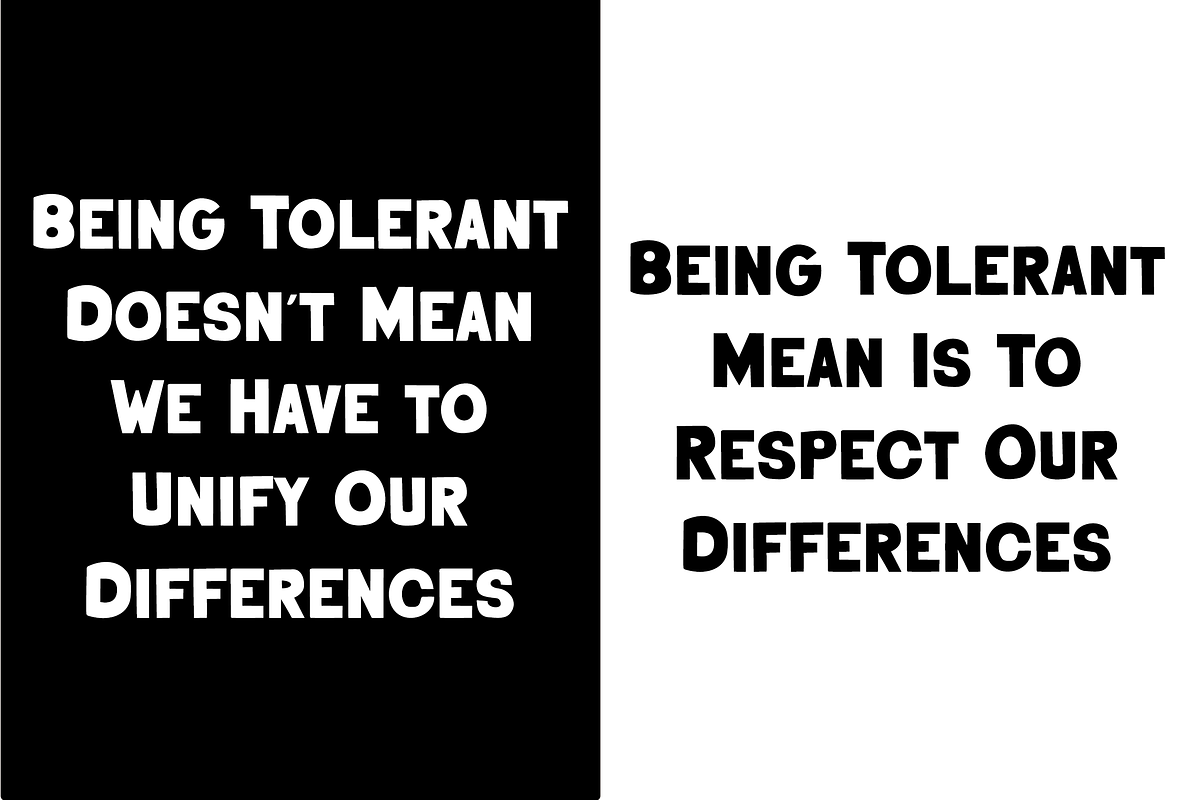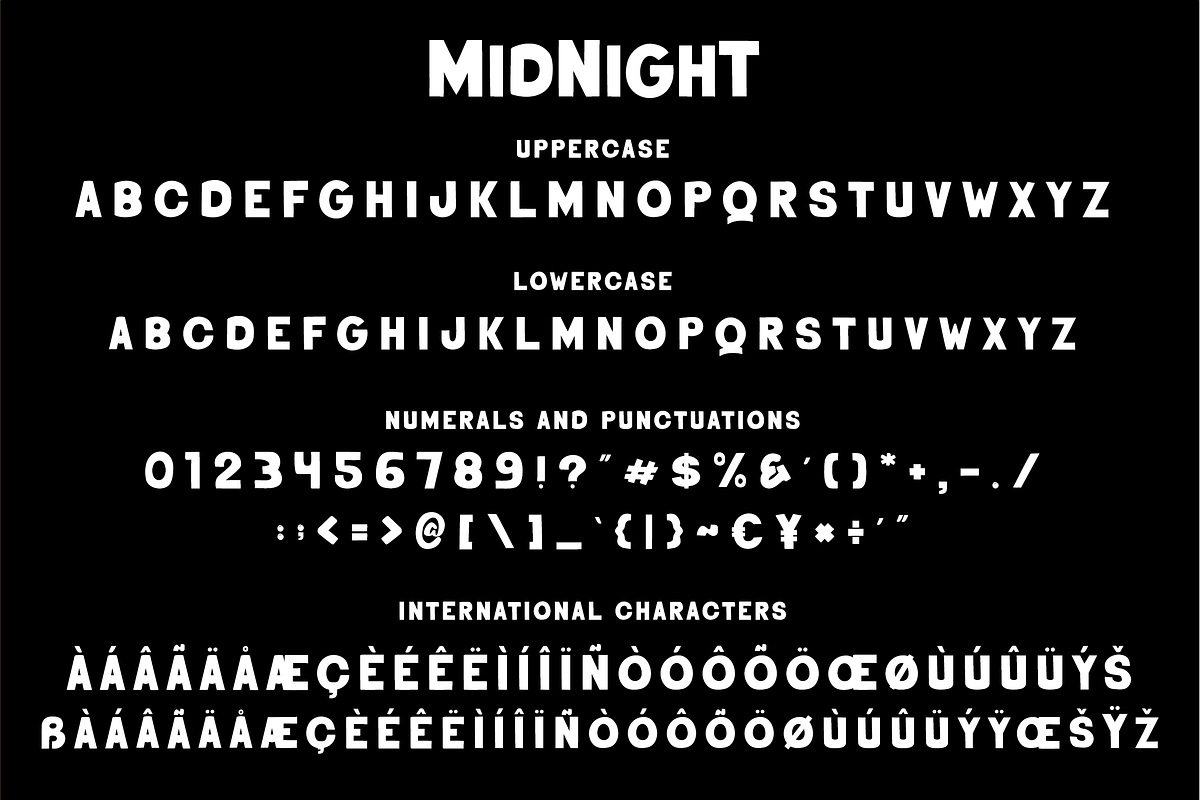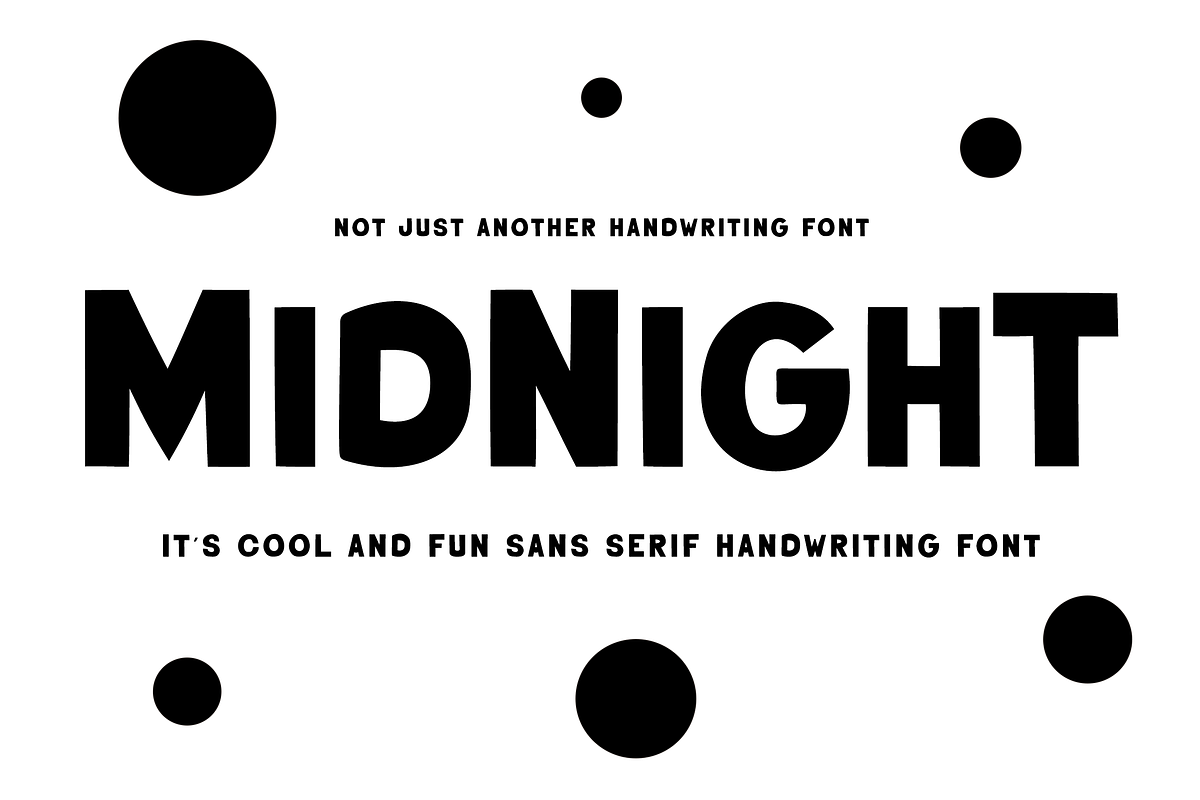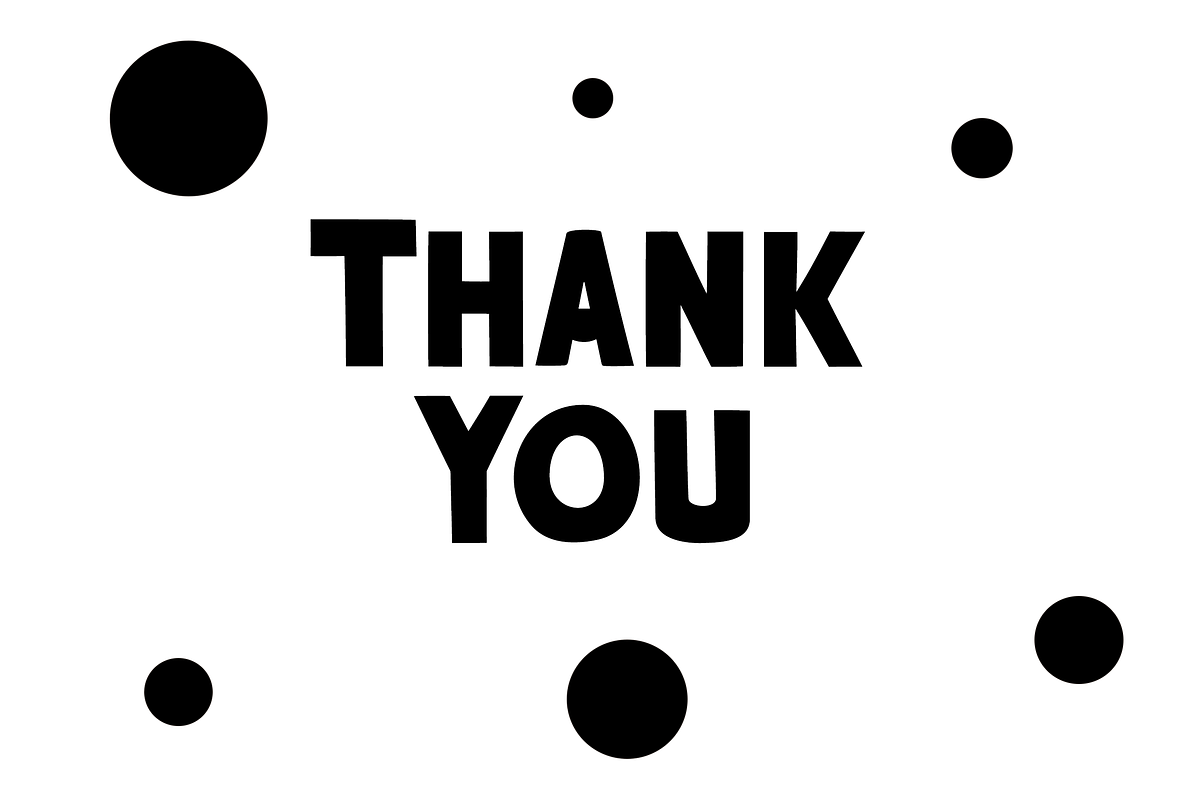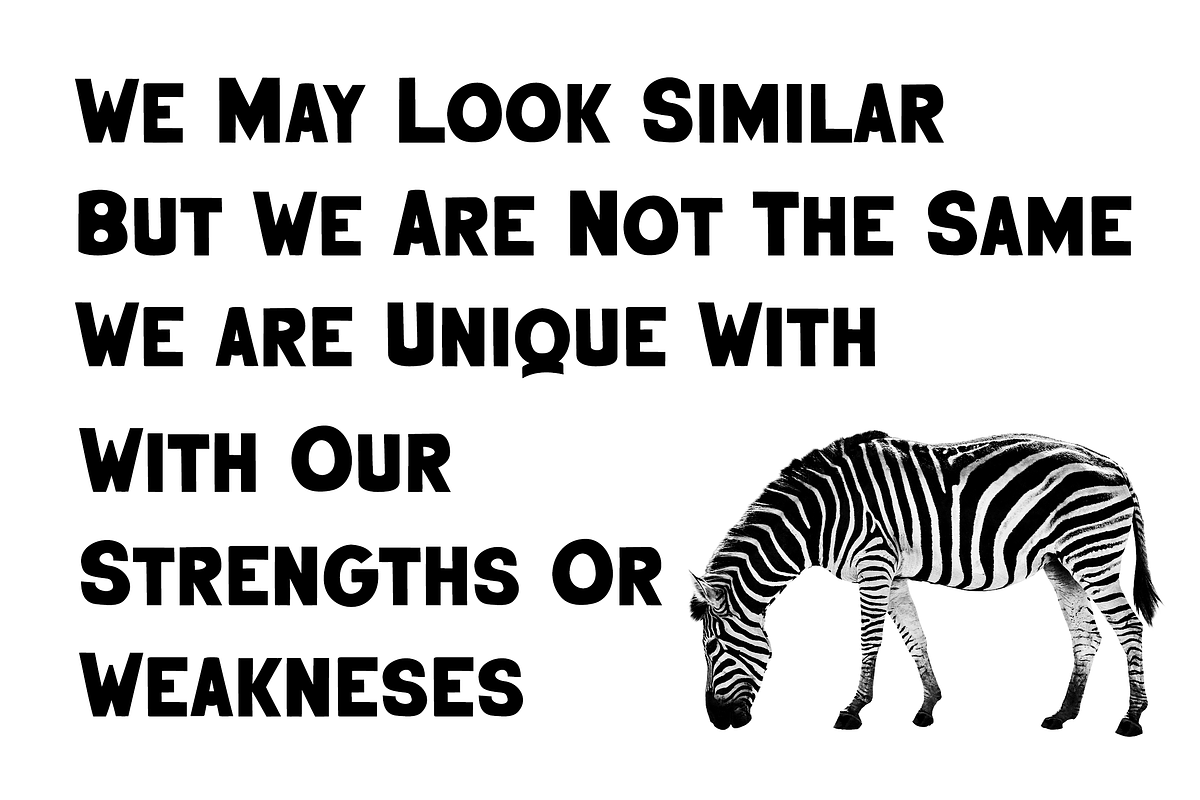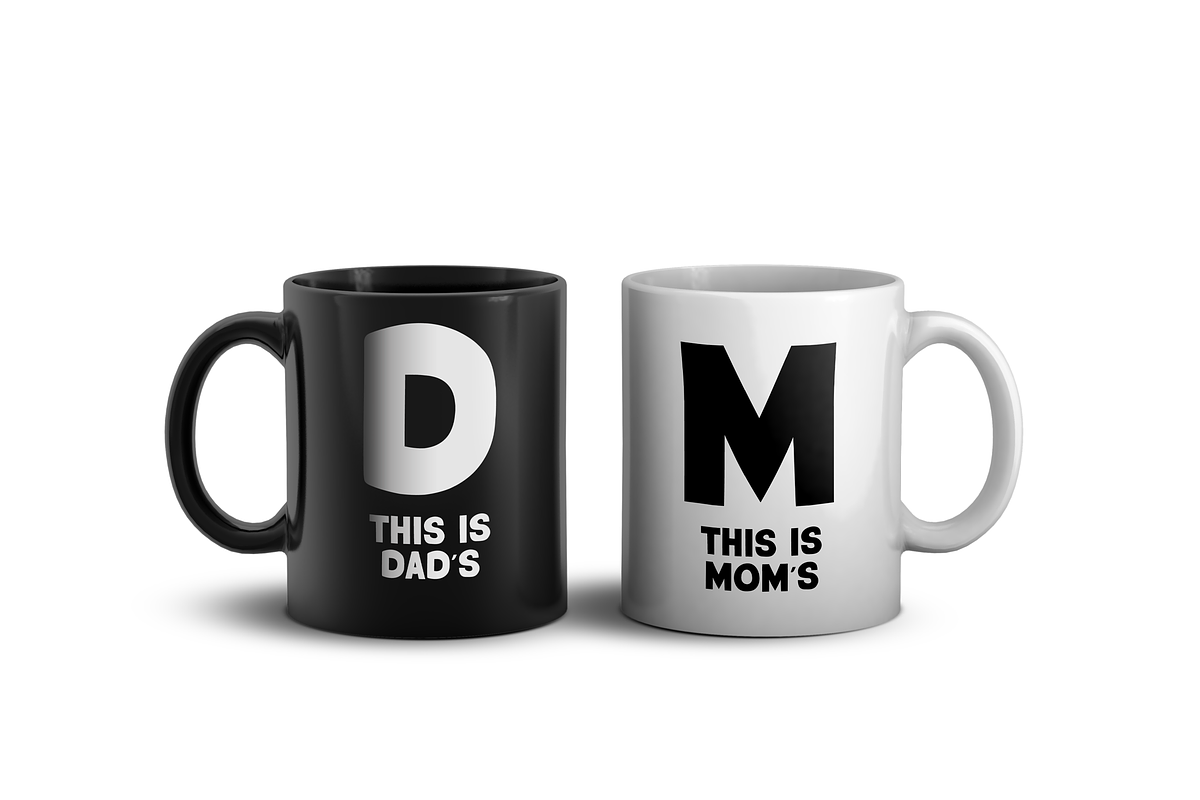
Midnight | Handwriting Sans Serif
Midnight is a quirky but professional look handwriting sans serif font. It is uniquely design with rough on the edges. It is suitable for product branding or logo, also just for simple design to describe your product to look outstanding.
- Standard Characters (Uppercase and Lowercase)
- International Characters